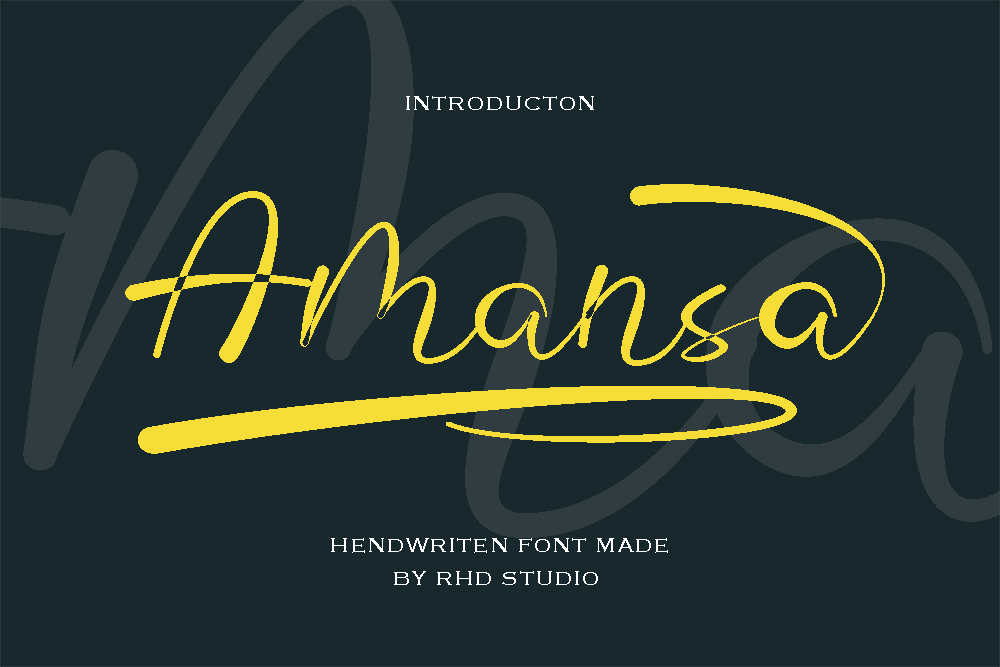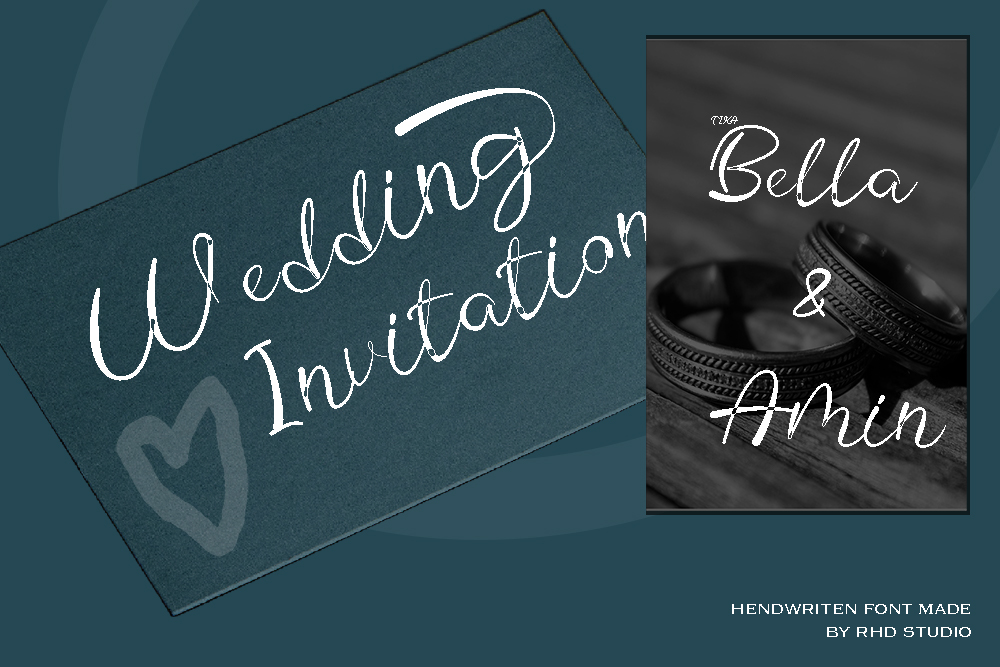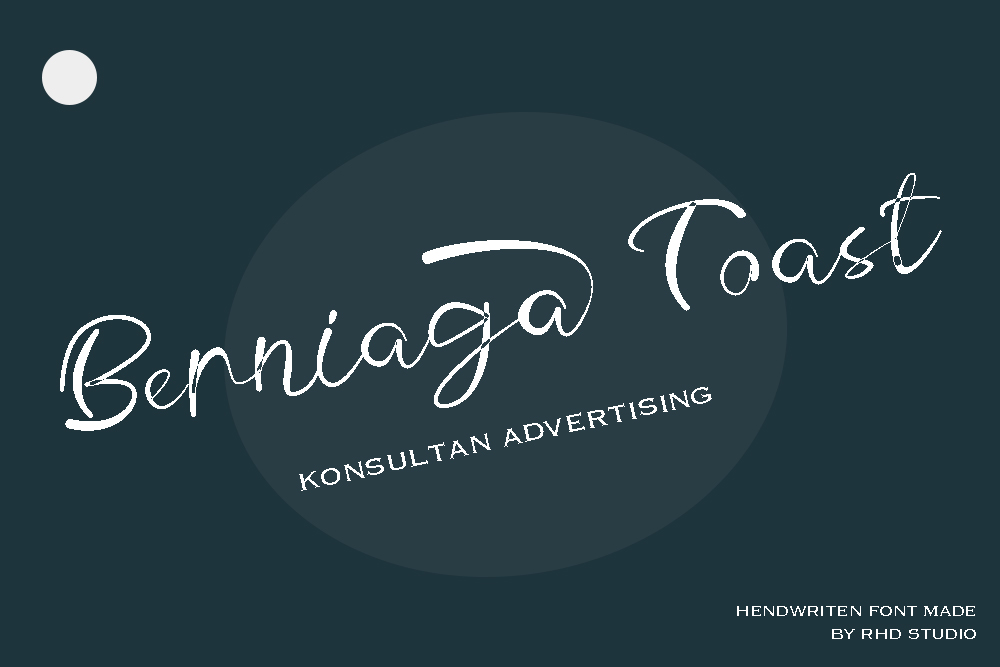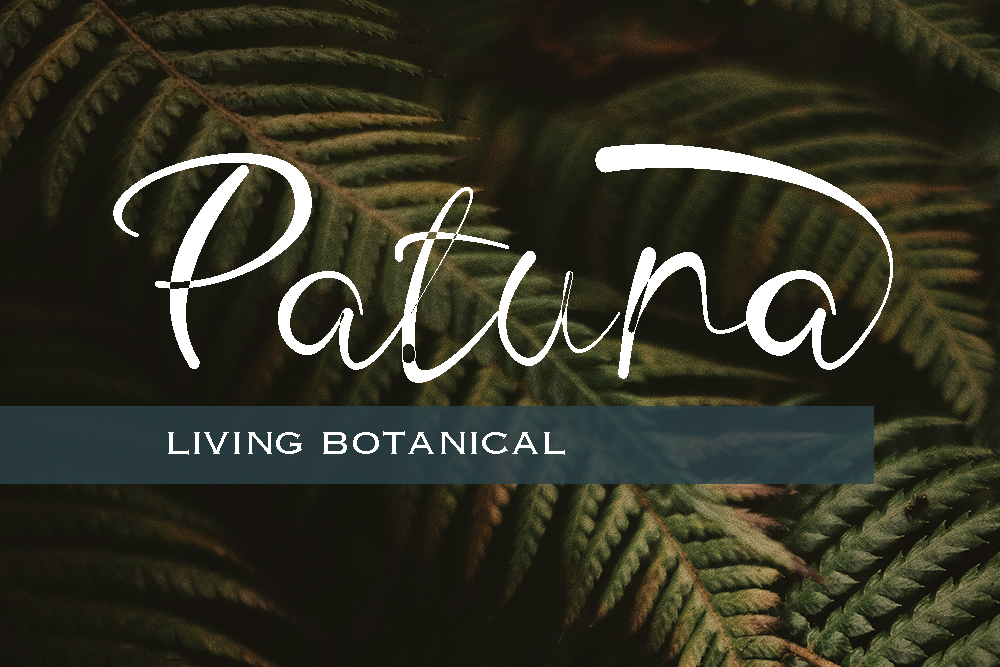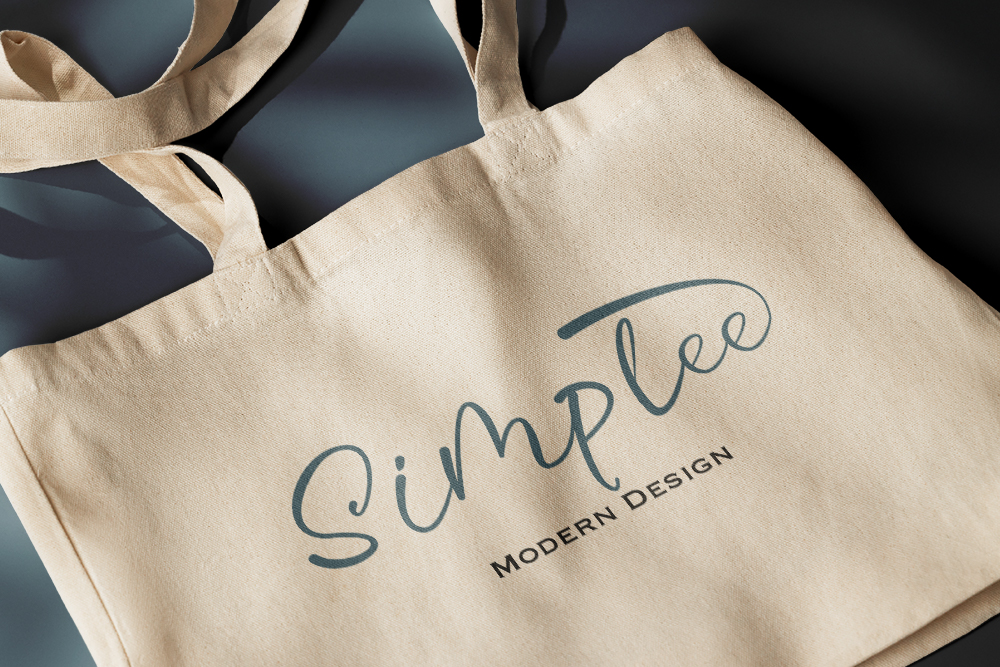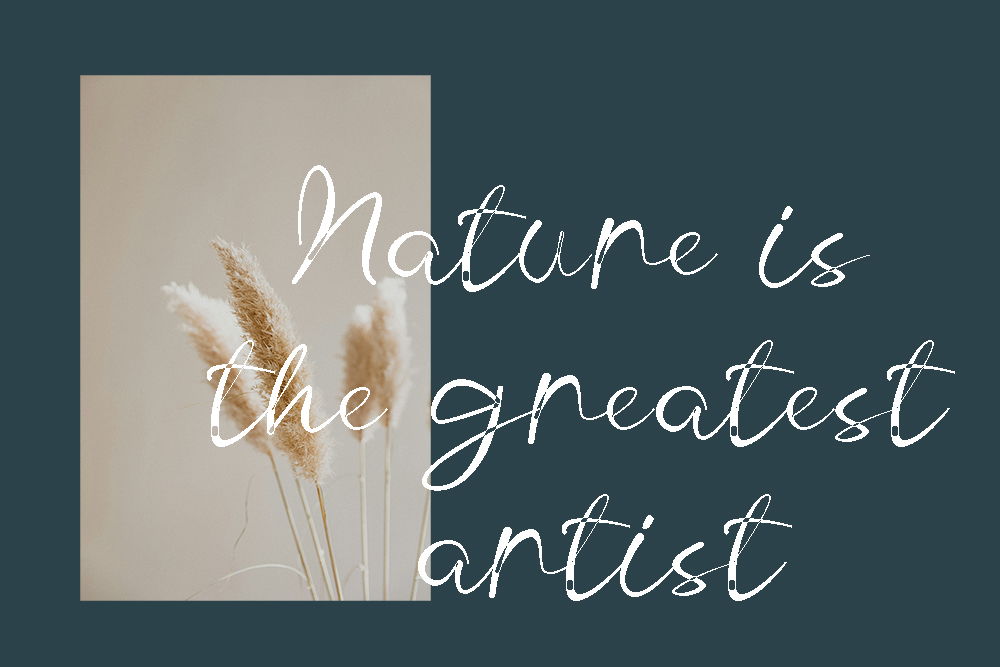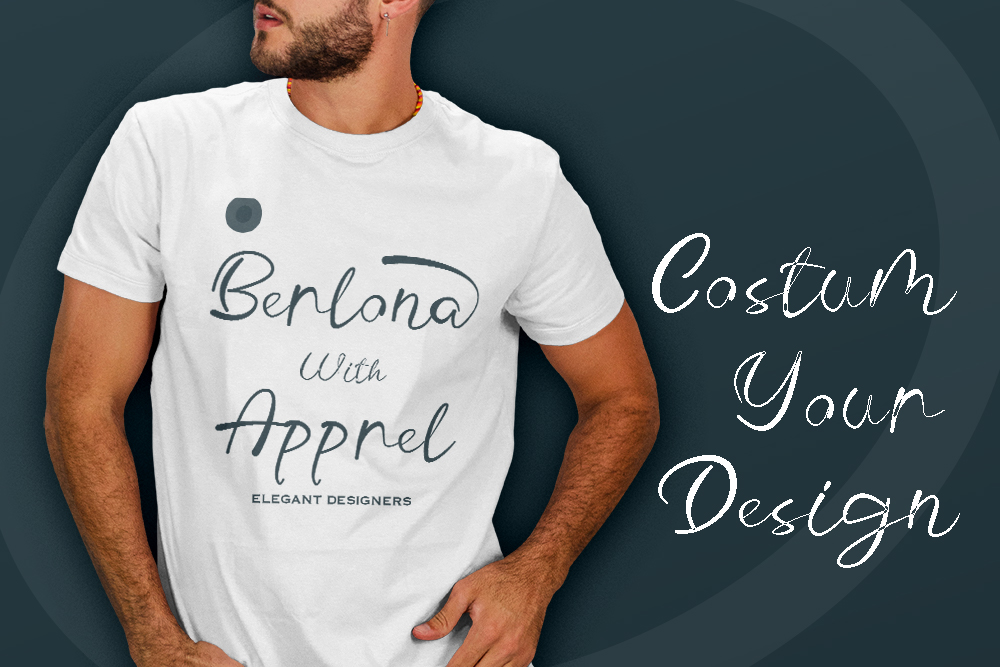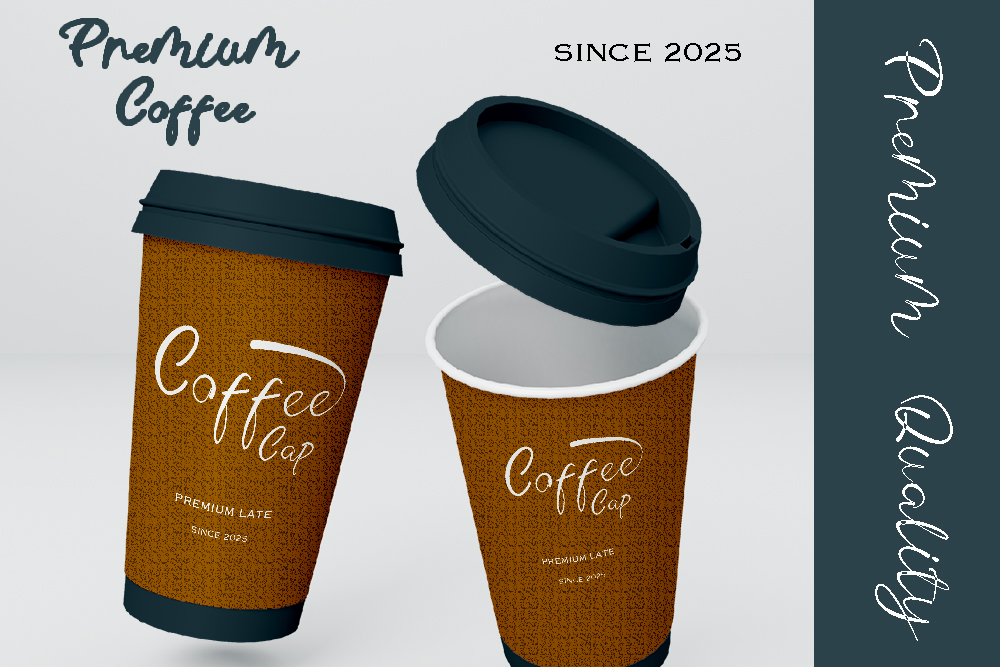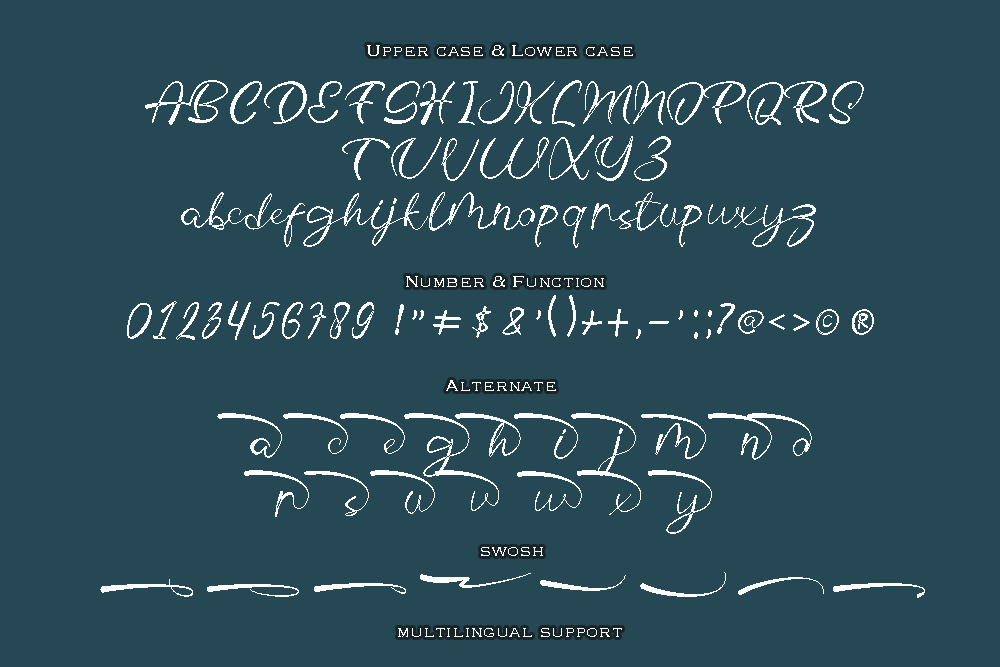
Hello everyone, I would like to introduce Amansa a modern and stylish handwritten font.
Amansa can be used for a variety of projects such as branding, labels, photography, invitations, stationery, wedding designs, social media posts, advertising, product packaging, product design, and more.
– Uppercase and Lowercase letters
– Numbering and Punctuations
– Multilingual Support